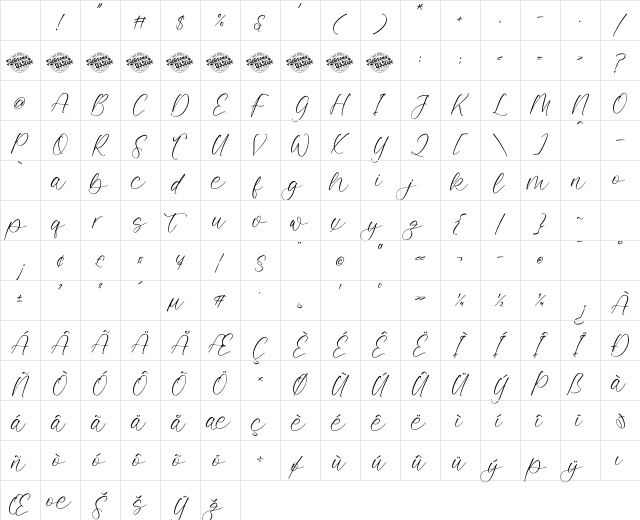
Valentina Goldwyn DEMO VERSION is a composed and adaptable typeface that performs quietly and consistently across a wide range of design contexts.
Pro Tip: Use Valentina Goldwyn DEMO VERSION in both headline and body roles to test its range before committing to a single application.